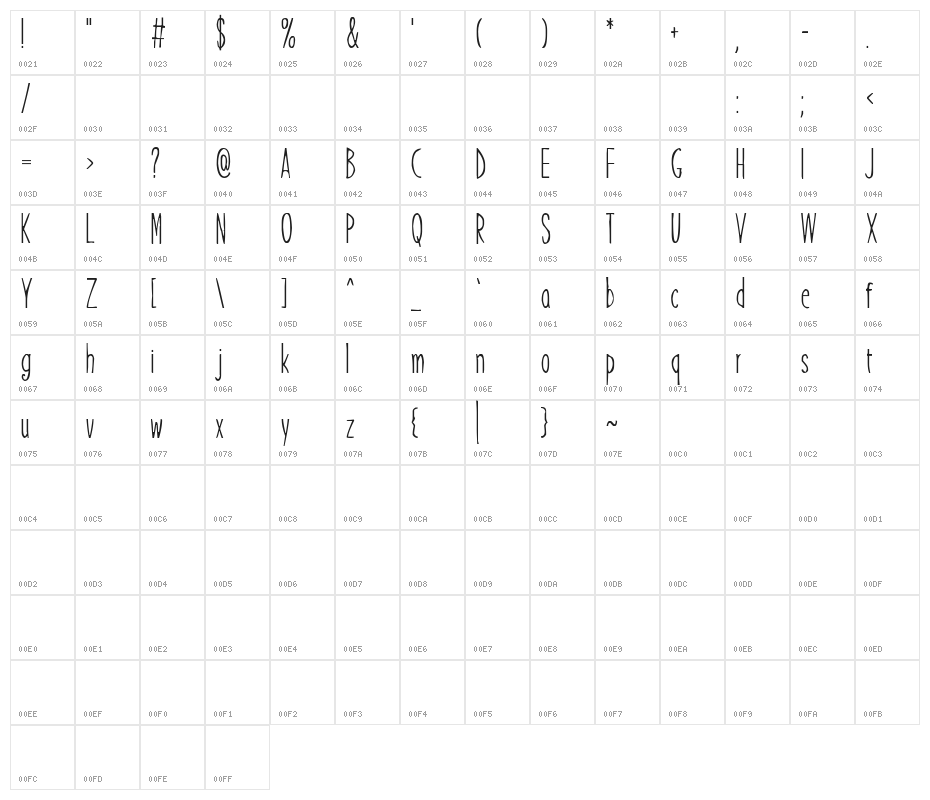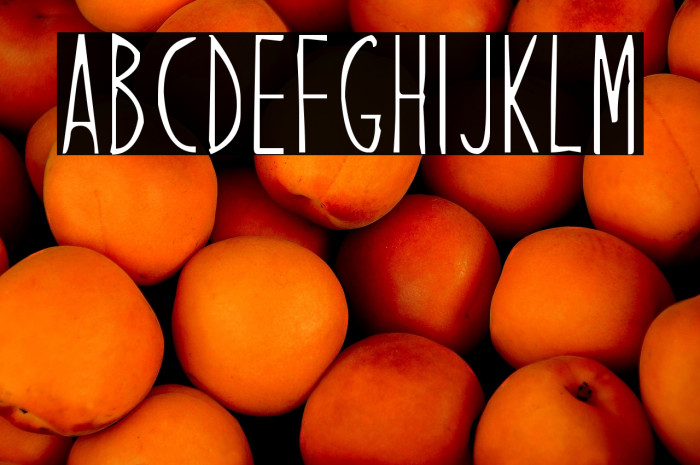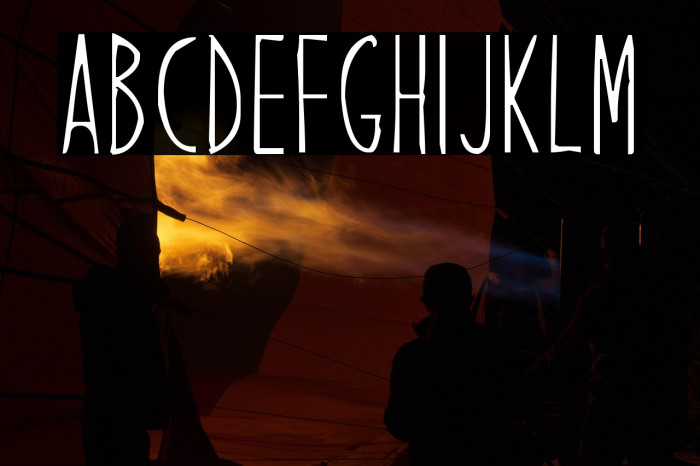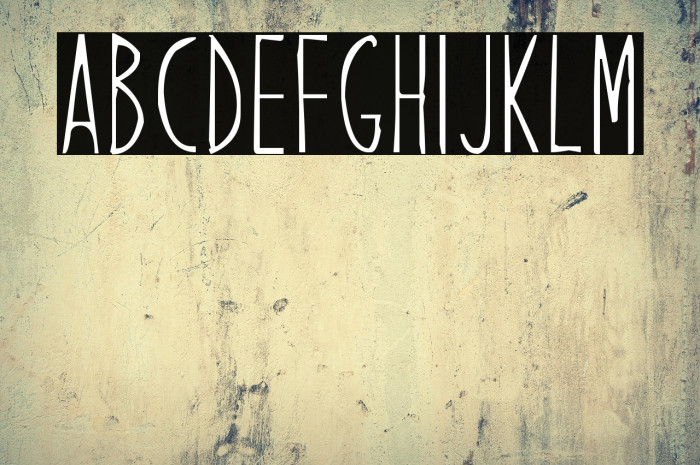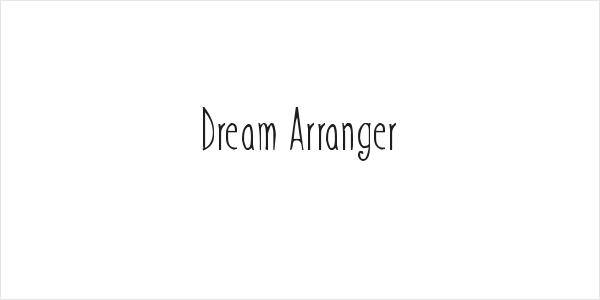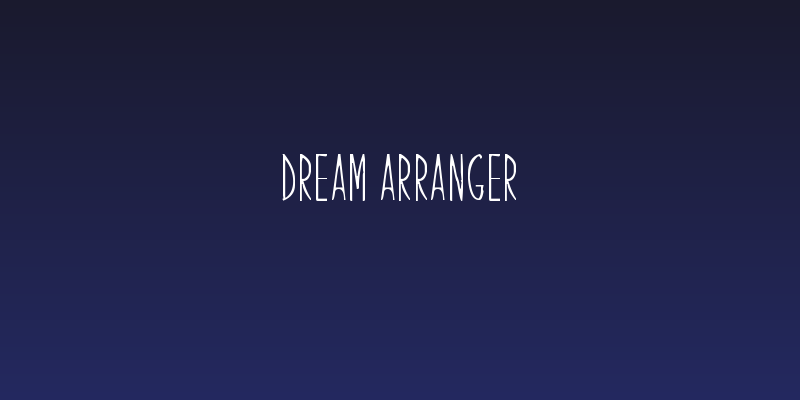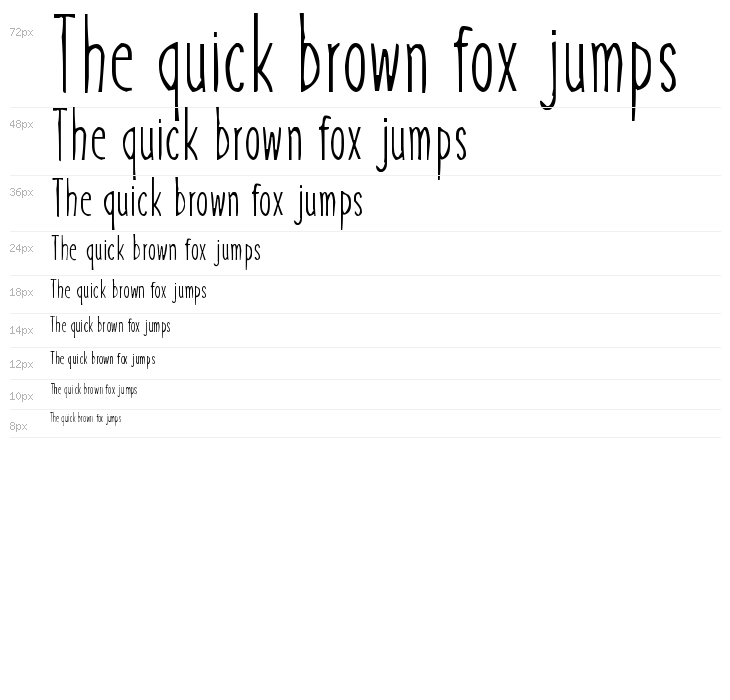
Dream Arranger Font
Dream Arranger Description
This font features a playful and whimsical design, characterized by tall, narrow letters with a hand-drawn appearance. The uppercase letters are slightly elongated, giving them a quirky and unique look. The lowercase letters maintain a consistent style, with some characters like 'e' and 'g' having distinctive loops. The numbers and special characters follow the same playful aesthetic, making the font suitable for creative and informal projects. The overall style is casual and artistic, perfect for adding a touch of personality to any design.